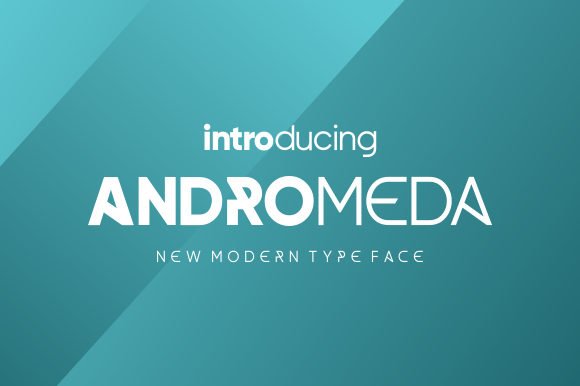
The Birth of a Cosmic Typography
Imagine being in a dimly lit, futuristic studio, surrounded by screens and creative tools, as you work on your next big project. Suddenly, an idea hits you – the perfect font to elevate your design and transport your audience to another galaxy. This is the moment when creativity knows no bounds, and the right typography can make all the difference.
This is where the Andromeda Font comes in – a sleek, futuristic sans serif font designed to deliver any message with confidence and style. Available in two distinct weights, this elegant font is perfect for designers who crave a touch of cosmic sophistication in their designs. Whether you’re working on a futuristic brand identity or a sci-fi inspired campaign, the Andromeda Font is sure to be a valuable addition to your design arsenal.
- Font Family: Andromeda is a sans-serif font family, suitable for digital and print media.
- Font Size: Andromeda is available in 5 font weights: Light (300), Regular (400), Medium (500), Bold (700), and Black (900).
- Unique Characteristics: Andromeda features a modern, geometric design with clean lines, rounded corners, and subtle rounded edges.
- Language Support: Supports a wide range of languages, including Latin, Cyrillic, Greek, and many others.
I’ve had the chance to work with the Andromeda Font, and I must say it’s been a mixed bag for me. There are some great features that make it shine, but some limitations hold it back from being a top-tier font.
- Unique and futuristic aesthetic: The Andromeda Font has a distinctive look that’s perfect for sci-fi, tech, or futuristic-themed projects.
- Highly legible: The font is well-designed for readability, making it suitable for body text or headings.
- Good character set: The font includes a wide range of characters, including accents and symbols.
- Limited language support: Unfortunately, the Andromeda Font doesn’t support as many languages as I’d like, which limits its versatility.
- No italic or bold styles: While the font is available in regular and bold weights, italic styles are missing, which can be a drawback for certain design projects.
Overall, the Andromeda Font is a solid choice for projects that require a futuristic or techy vibe. However, its limitations hold it back from being a go-to font for more general design work. With some additional language support and italic styles, I’d be more likely to recommend it to designers.
- Design a minimalist layout with a clean, white background.
- Use the Andromeda Font to create headings and subheadings that highlight key concepts or quotes.
- Experiment with different font sizes and colors to create a sense of hierarchy and emphasis.
- Use illustrations or graphics to break up text and add visual interest.